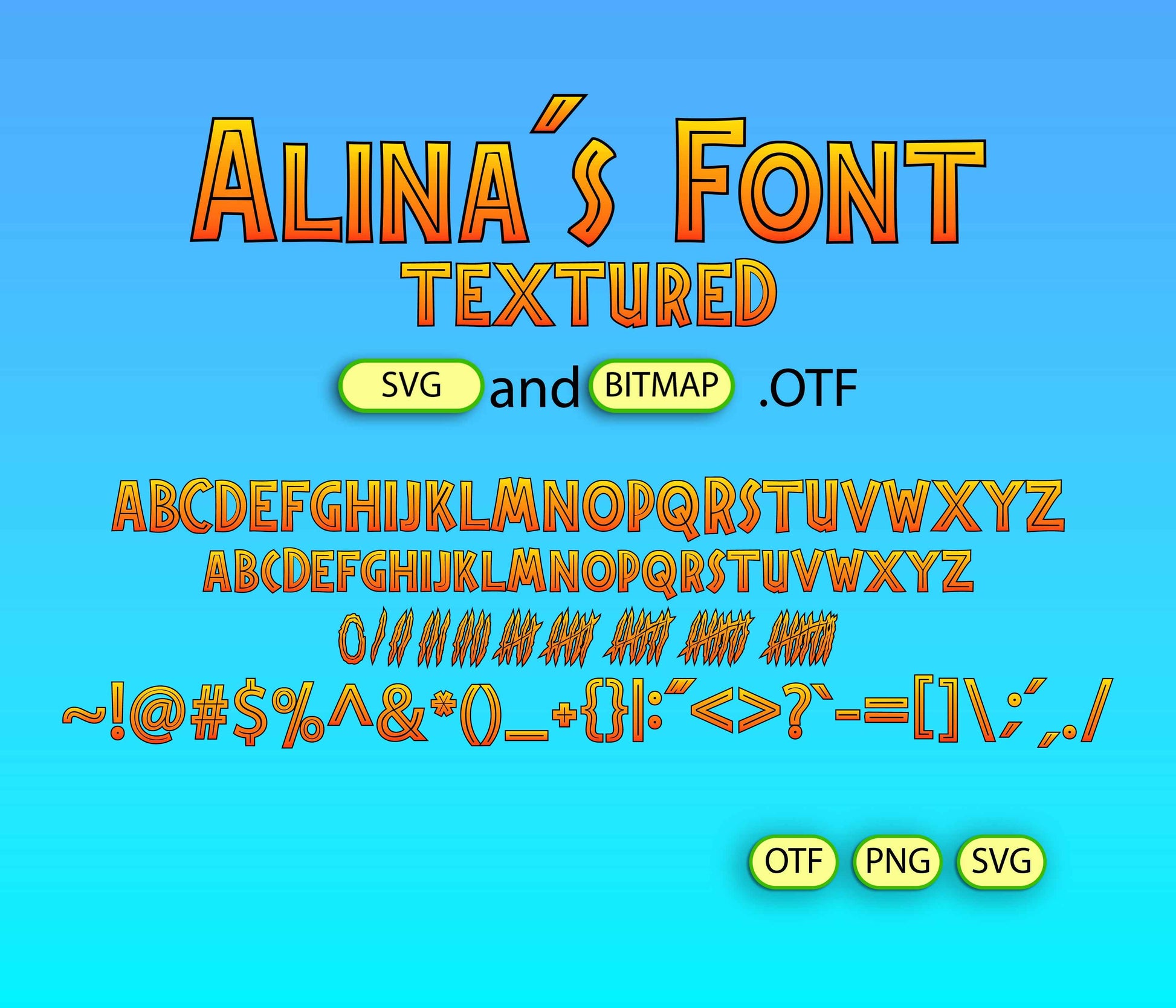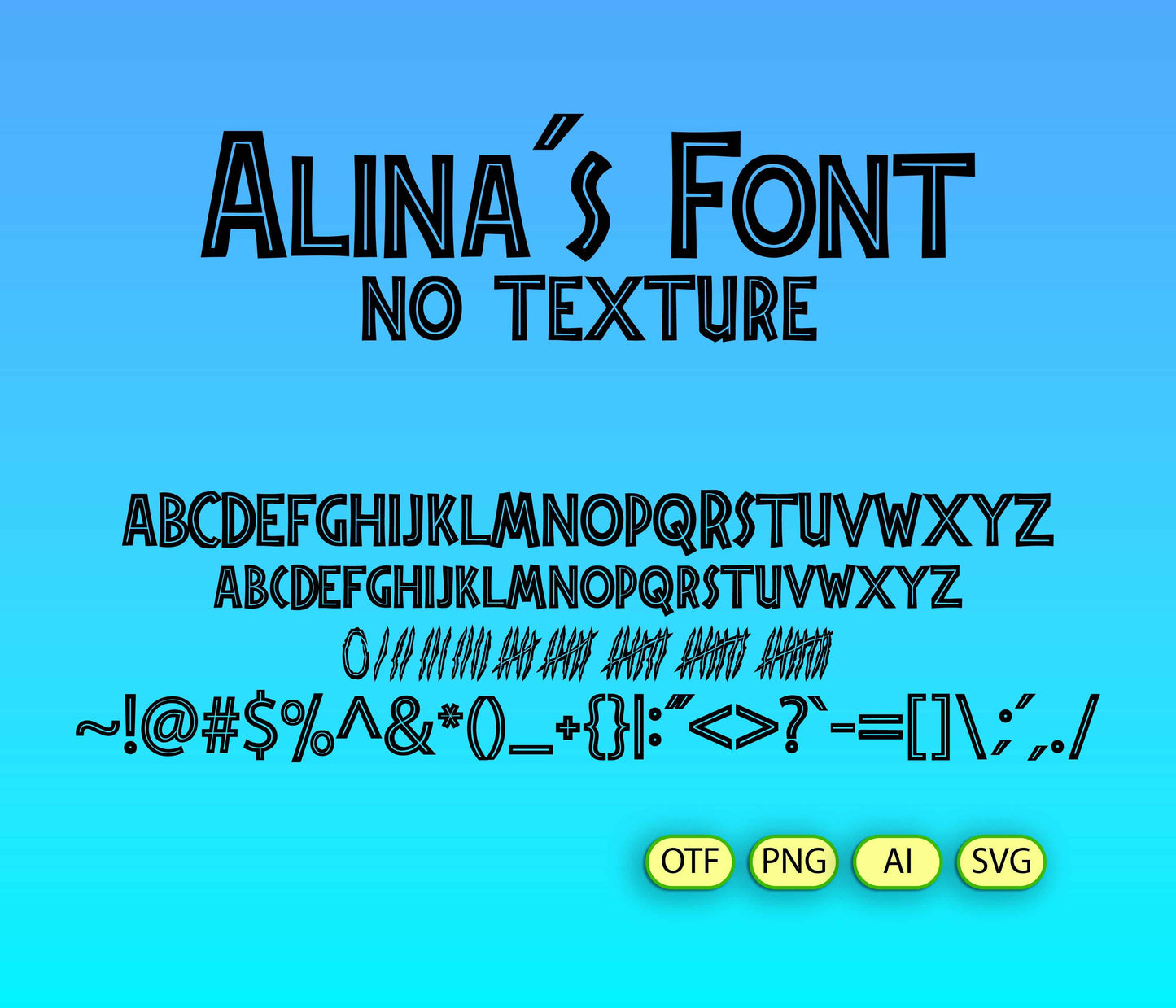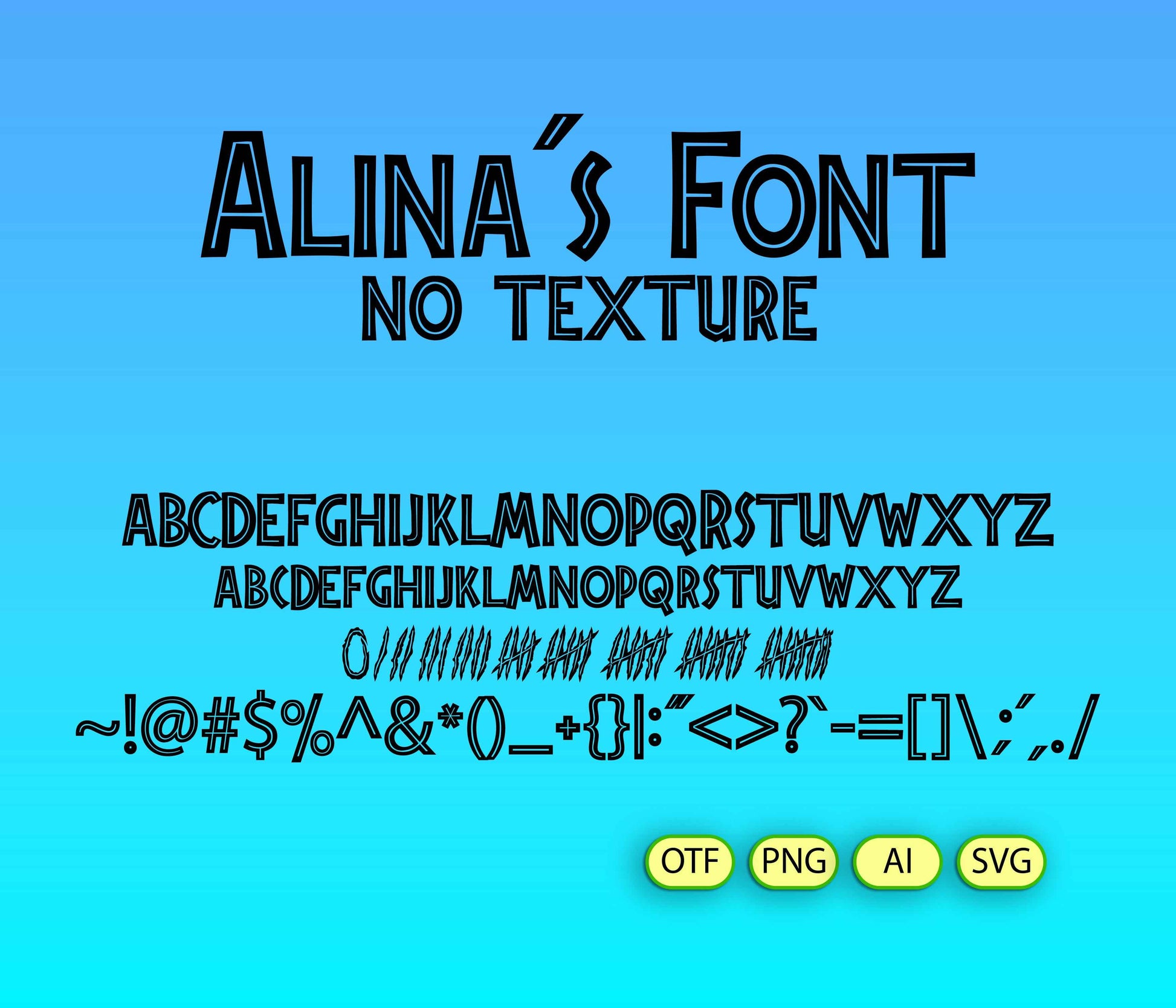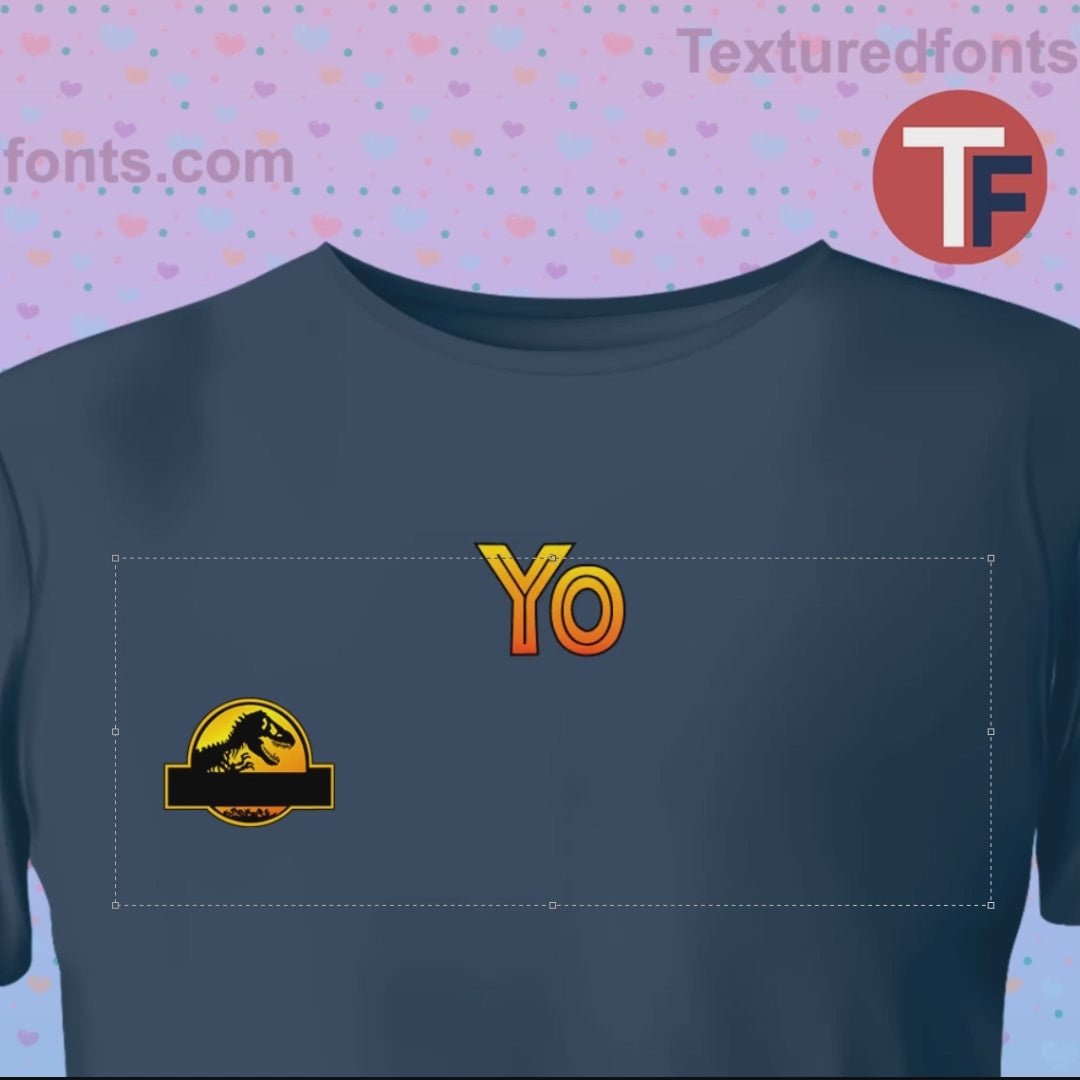
Prehistoric Adventure Font Textured
Unleash the Wild with the Prehistoric Adventure Font
Step into the thrilling world of dinosaurs and adventure with our Prehistoric Adventure-inspired font. Designed to evoke the intense and unpredictable nature of the Jurassic World franchise, this font is perfect for fans, theme park designers, and creators looking to infuse their projects with the essence of prehistoric drama and excitement. Whether you’re promoting a new exhibit, designing content for dinosaur enthusiasts, or crafting merchandise, this font ensures your creations capture the adventurous spirit of the Jurassic universe.
Mirroring the rugged and dynamic feel of the Jurassic franchise, our Prehistoric Adventure font features bold, jagged edges that resemble the untamed nature of the dinosaurs themselves. The design includes a complete character set—uppercase, lowercase, numbers, and special symbols—making it versatile for a broad range of applications:
To ensure that everyone can utilize this exciting font, our Prehistoric Adventure-inspired font includes both textured and non-textured variants. The non-textured version is particularly useful, ensuring compatibility with all types of software, including Canva. This version is essential for those who need a clean and clear look for their projects, allowing for easy reading and professional presentation across all media types.
Prehistoric Adventure Font Generator
Many people seek out a Prehistoric Adventure Font generator online to mimic the look of the Jurassic World Font. Steer clear! No font generator can match the quality of this Prehistoric Adventure Font, which comes in two versatile versions: a textured colored version and a simple version. This is particularly beneficial if you plan to use it with a cutting machine.
Our Prehistoric Adventure font not only pays homage to the epic tales of dinosaurs but also enables you to bring these giant creatures into your creative projects. With its bold style and flexible application, this font allows you to communicate with the intensity and thrill of a world where dinosaurs roam. Ready to make your designs roar with the excitement of the Jurassic universe? This font is here to help you capture the imagination of audiences and transport them to a world of prehistoric adventure.